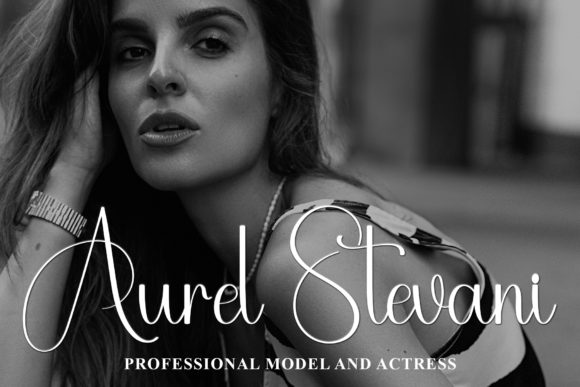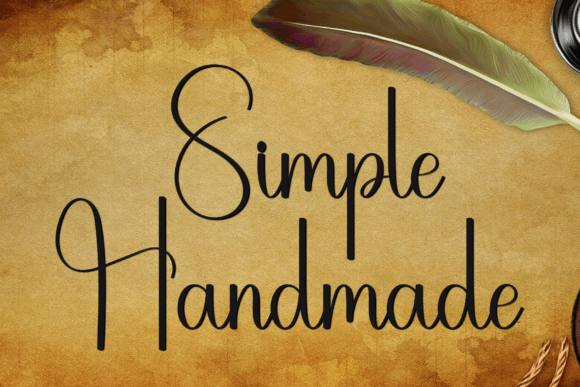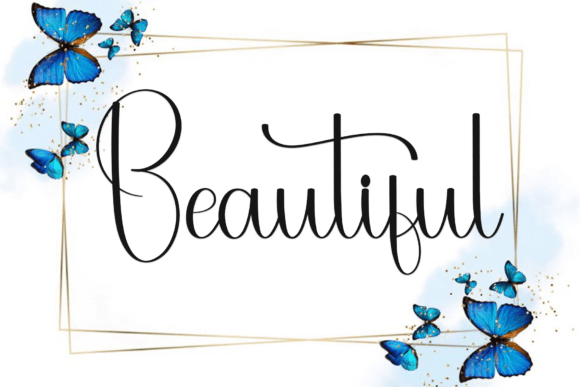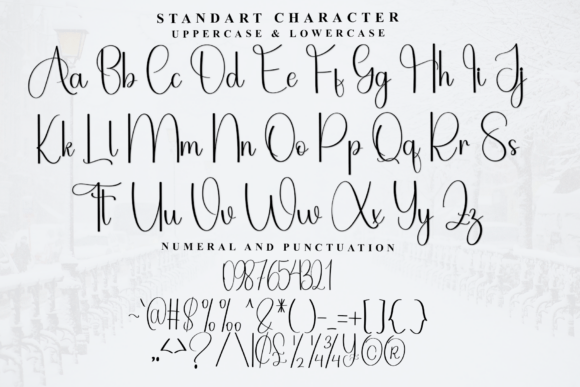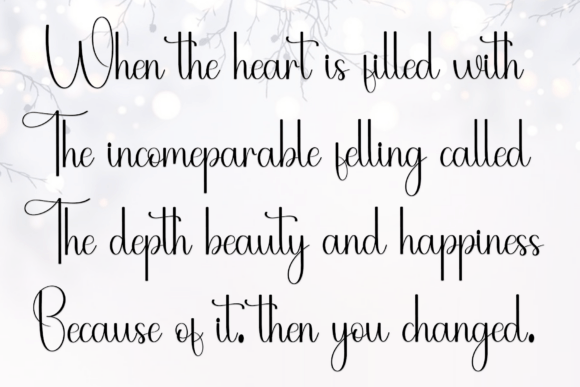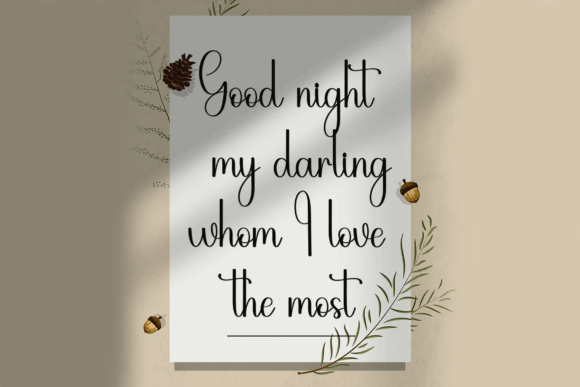
The Autoplay Font: A Timeless Handwritten Treasure for Designers
Have you ever been in the middle of a design project, and suddenly, you’re stuck on finding the perfect font? I recall a recent experience where a client asked for a logo that exuded elegance and playfulness. After scouring through numerous font libraries, I stumbled upon the Autoplay Font, and it instantly became the perfect fit. In this article, I’ll share my journey with this lovely and timeless handwritten font, its features, and how to make the most of it in your designs.
A Personal Review: What I Love About Autoplay Font
The Autoplay Font has won my heart with its unique charm. Here are some aspects that I absolutely love:
- ✨ Unique and Beautiful Touch: Every letter in the Autoplay Font has a distinct and beautiful touch, making your designs come alive!
- ✅ Elegant and Playful: The font strikes the perfect balance between elegance and playfulness, making it suitable for a wide range of design projects.
- ✨ Versatile: From eye-catching logos to branding and quotes, the Autoplay Font is an excellent choice.
While the Autoplay Font is fantastic, there are a few minor quirks to be aware of:
- 🤔 Overuse: As with any beautiful font, there’s a risk of overusing it. Balance is key to making your designs stand out.
The Designer Inspiration Behind Autoplay Font
Imagine a designer who travels the world, capturing the essence of different cultures through handwritten notes and typography. The Autoplay Font could be the result of such a journey, blending traditional techniques with modern digital design. This font embodies the spirit of creativity and freedom, making it perfect for designers who want to add a personal touch to their work.
| What makes the Autoplay Font unique? | The Autoplay Font is unique due to its beautiful, handwritten style with a distinct touch in every letter, along with PUA encoding for easy access to glyphs and ligatures. |
| Is the Autoplay Font suitable for body text? | While the Autoplay Font is stunning, it’s more suited for headings, logos, and short texts due to its decorative nature. For body text, a more readable font is recommended. |